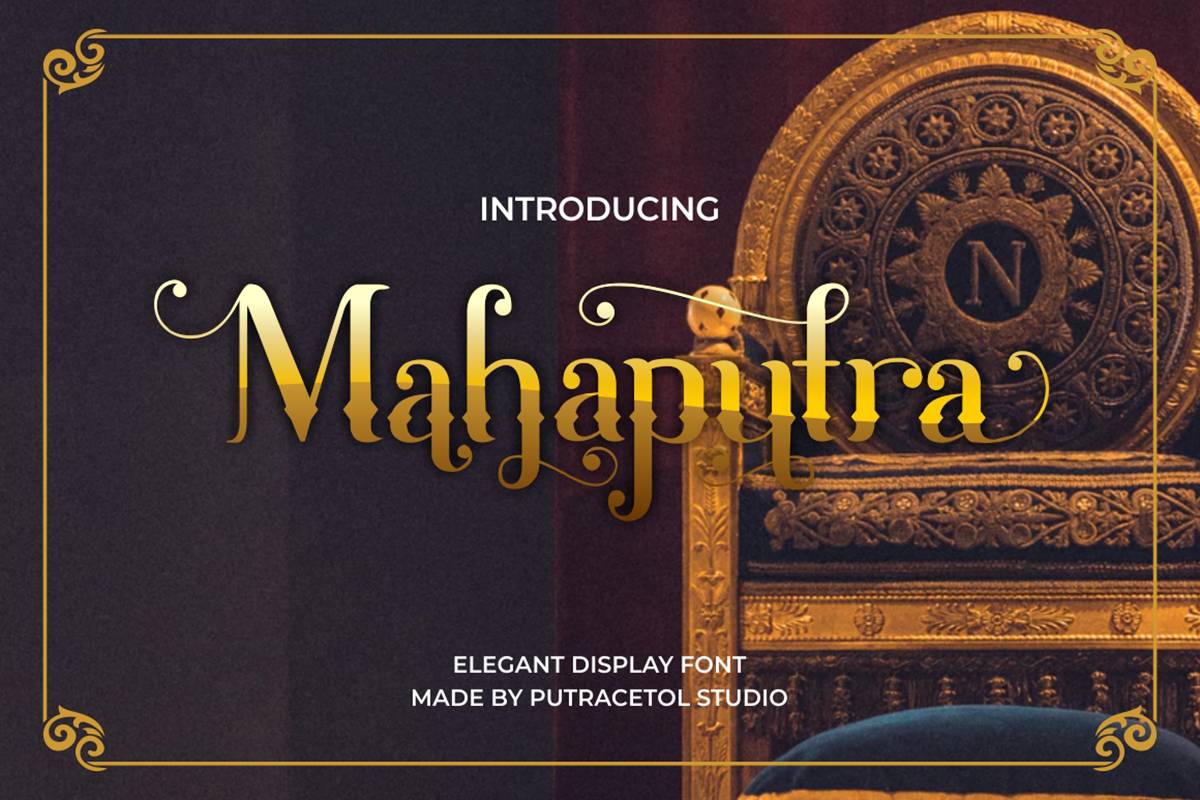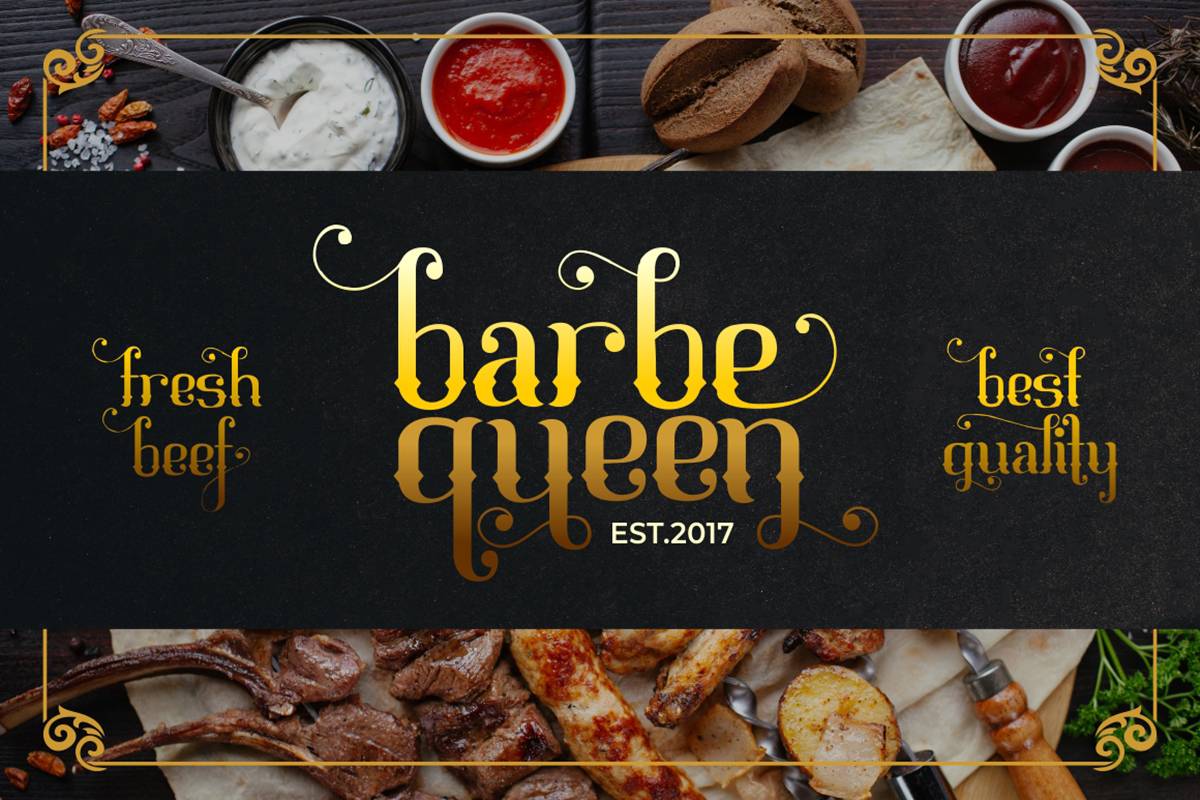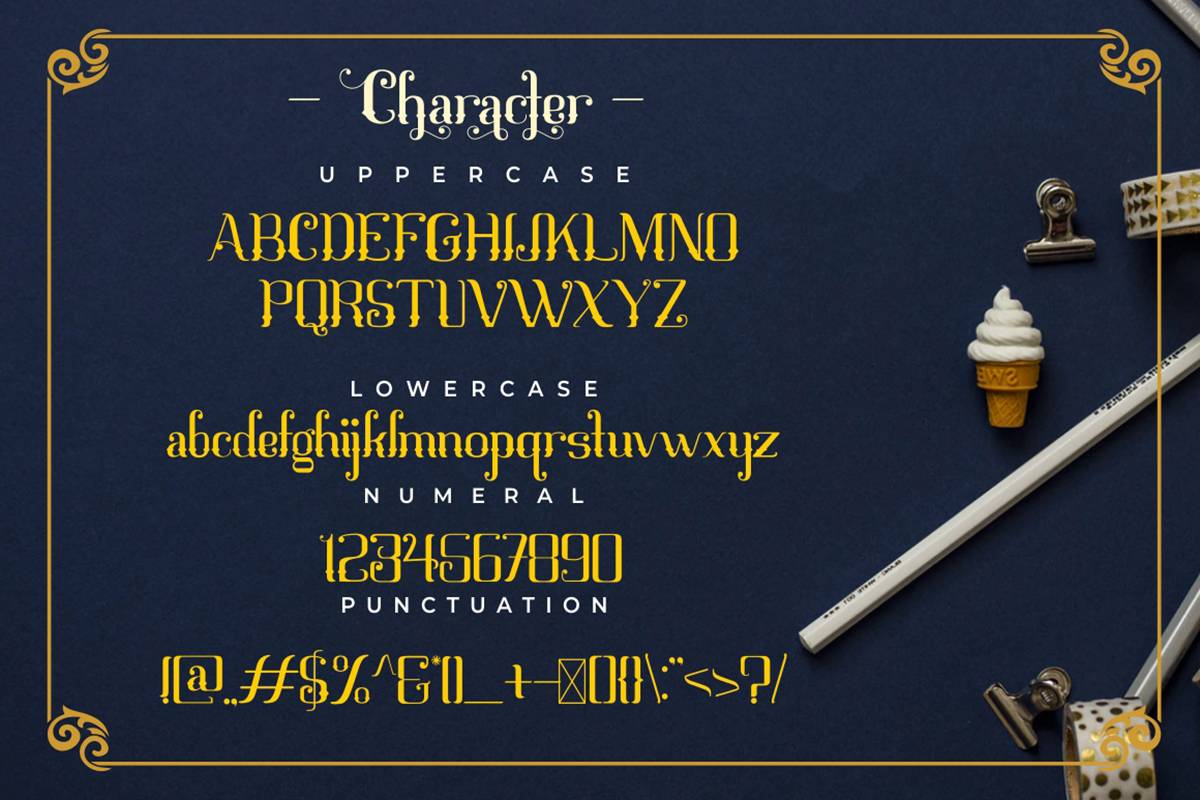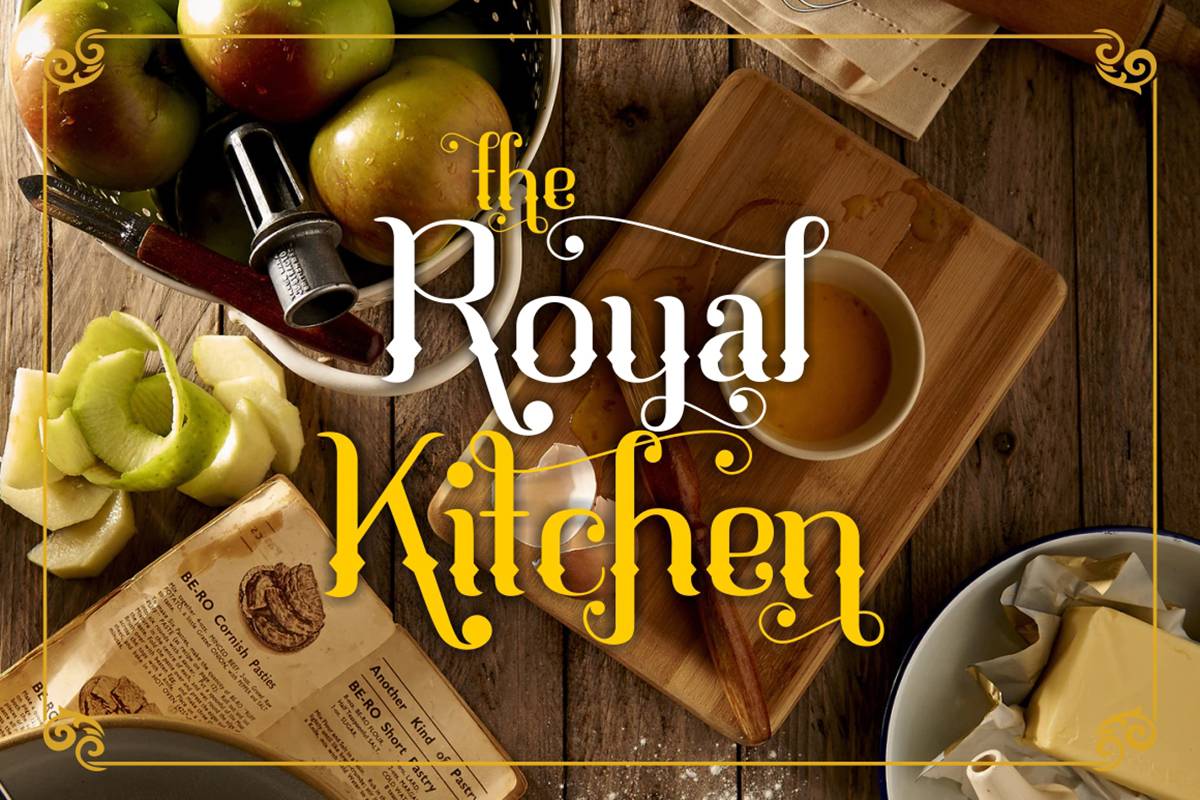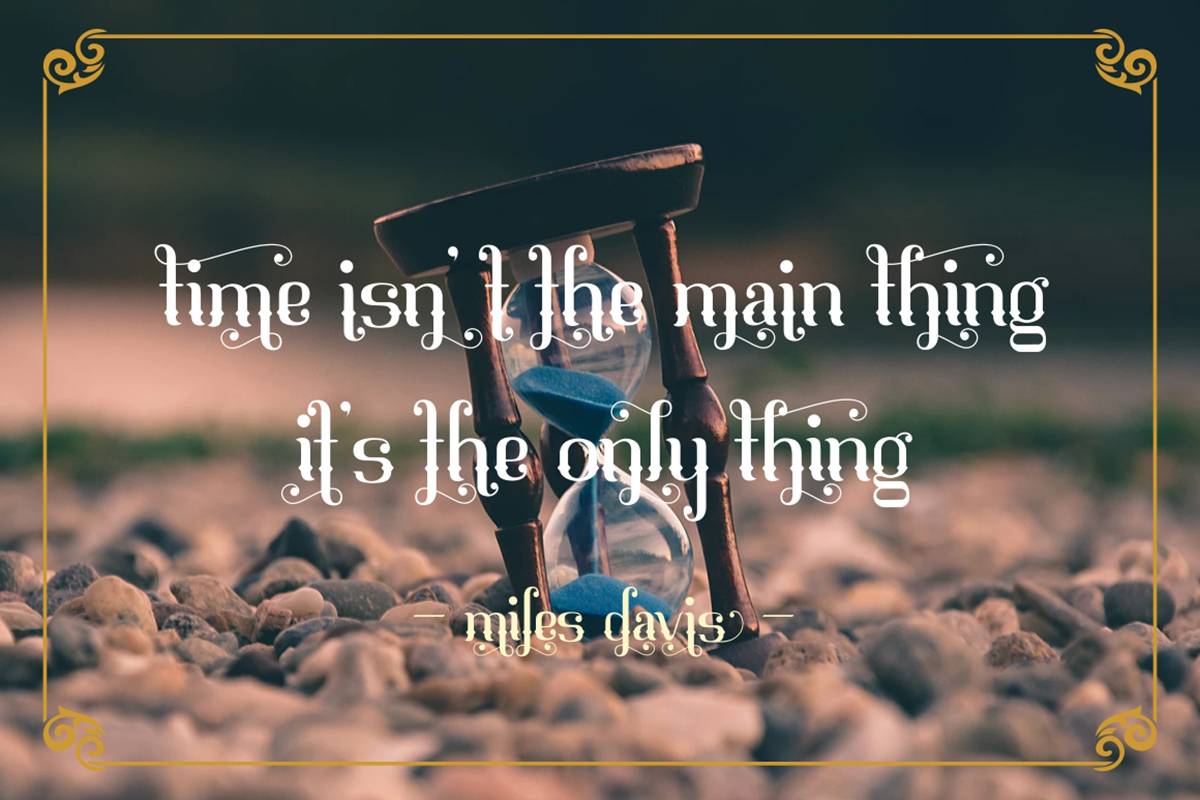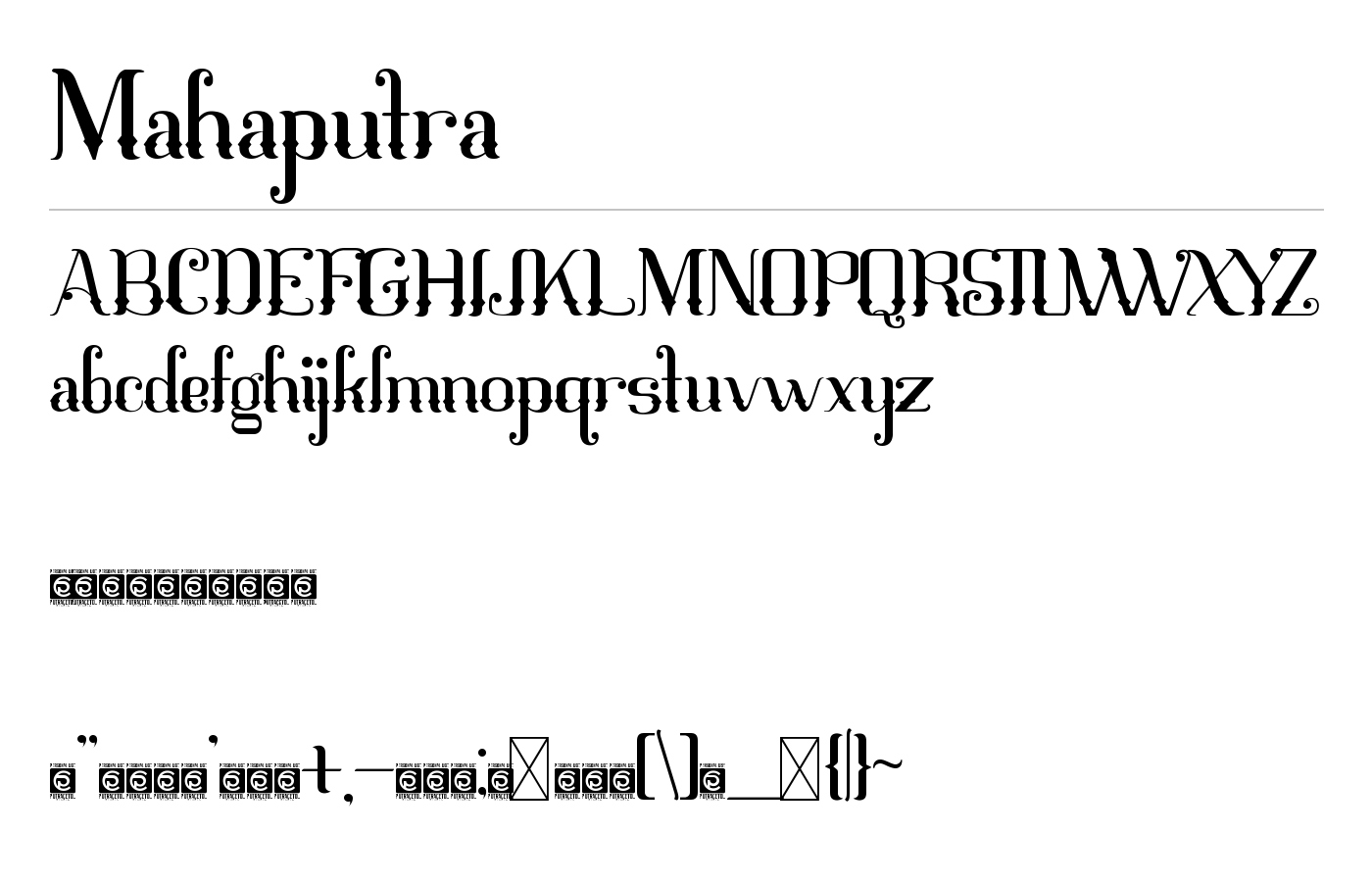
Mahaputra is a decorative serif font with a unique blend of classic and ornamental features, characterized by its sharp serifs and intricate terminal flourishes that add a whimsical, vintage charm. Its medium stroke contrast and narrow proportions, along with distinctive letterforms featuring curls and loops, make it ideal for elegant headlines, logos, or branding that seeks a sophisticated yet artistic statement. This font works well in contexts where a touch of personality and refined flair can enhance the visual appeal without sacrificing readability.